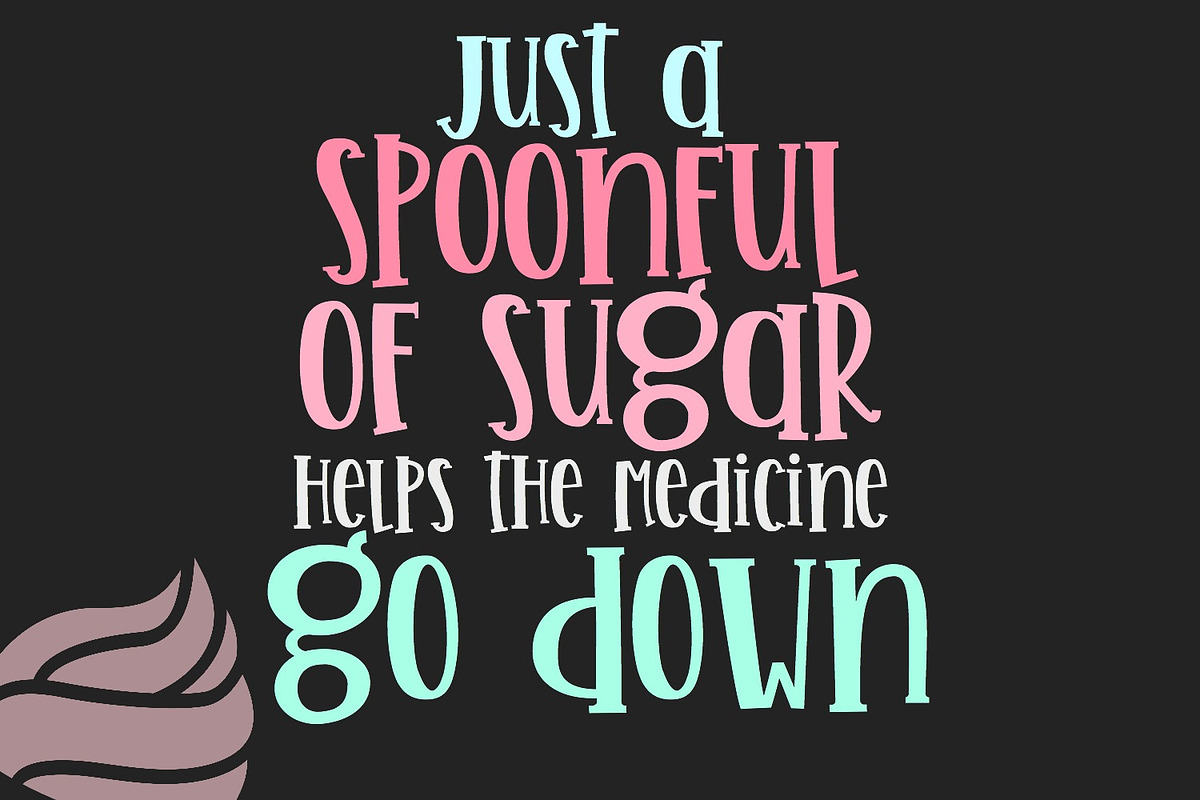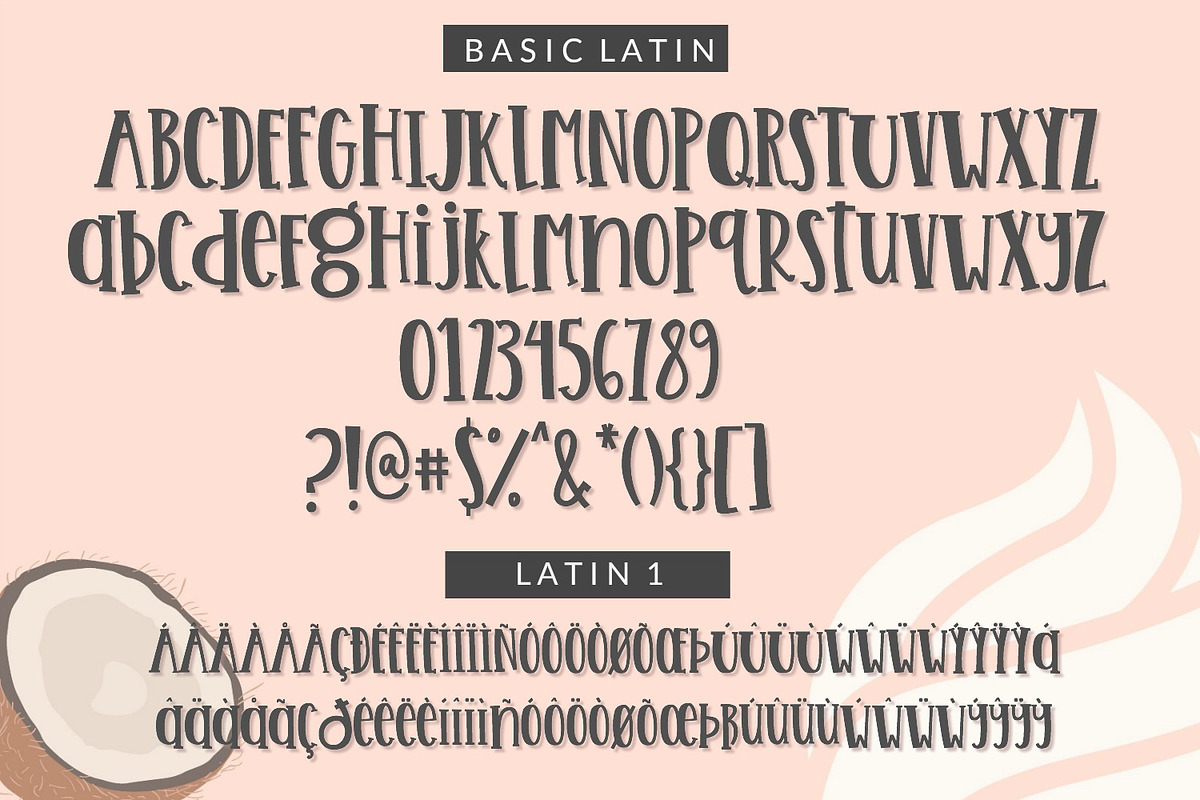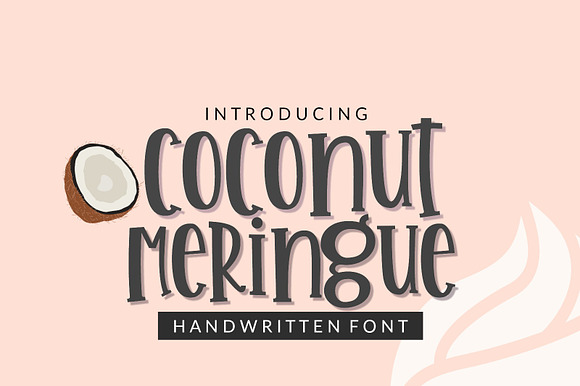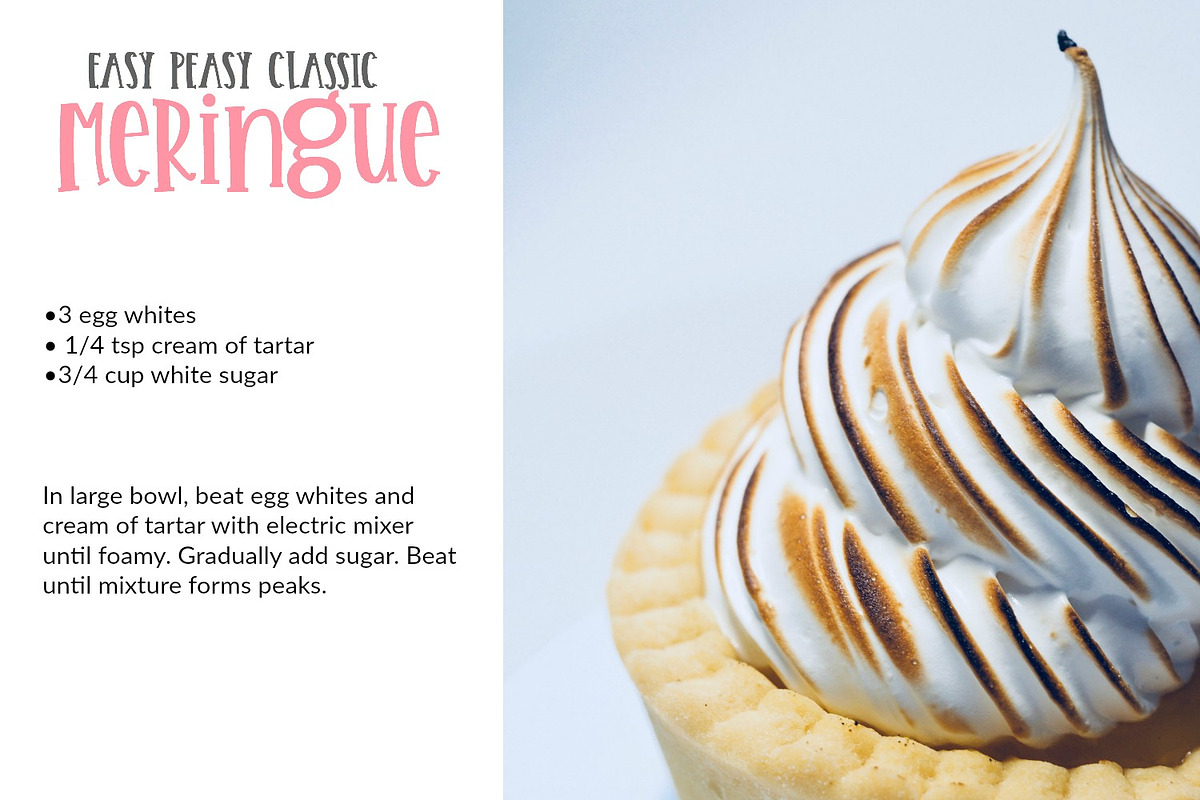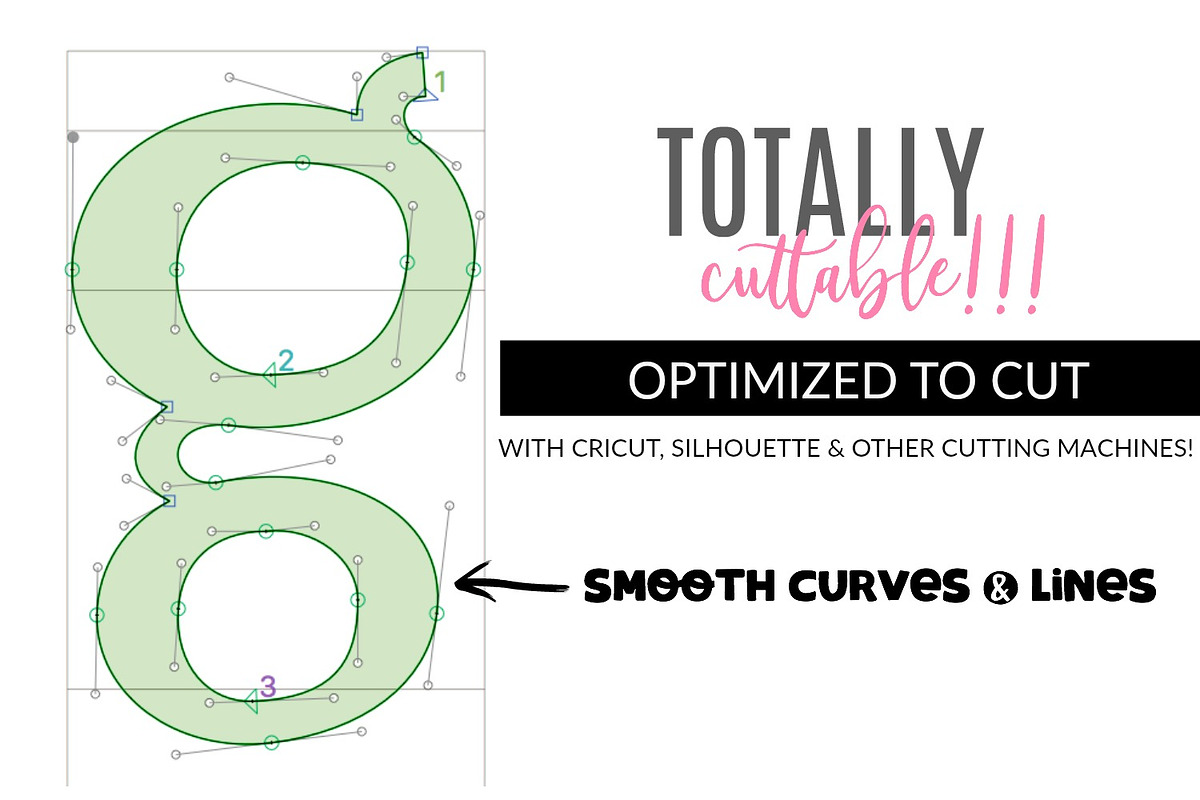
Coconut Meringue Handwritten Font
Meet Coconut Meringue! This handwritten font is playful, charming and perfect for many design projects! I've made this font as smooth as possible, reducing the amount of nodes in each glyph to ensure optimal cutting with Cricut, Silhouette or other craft machines.